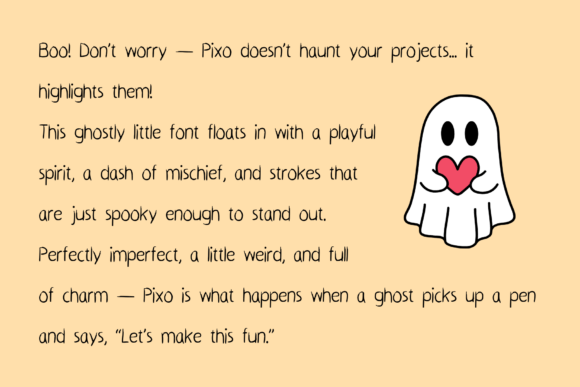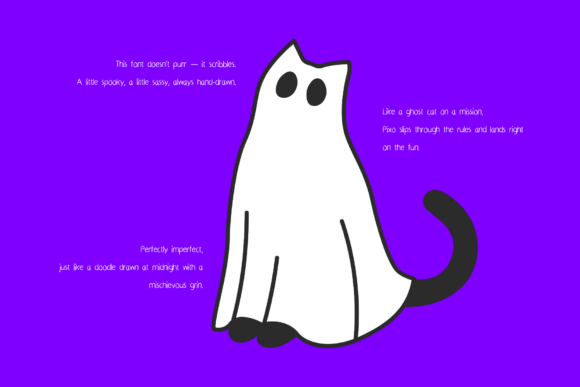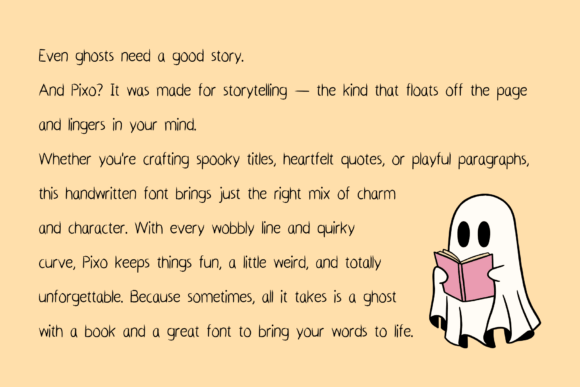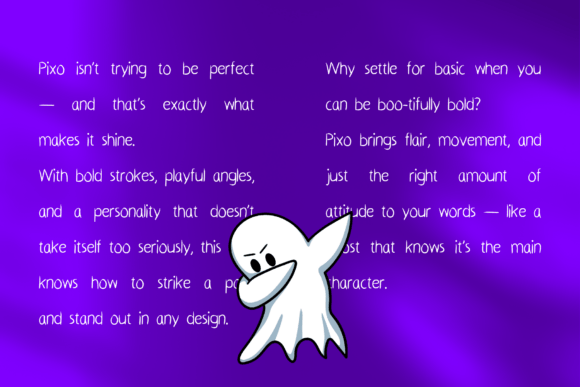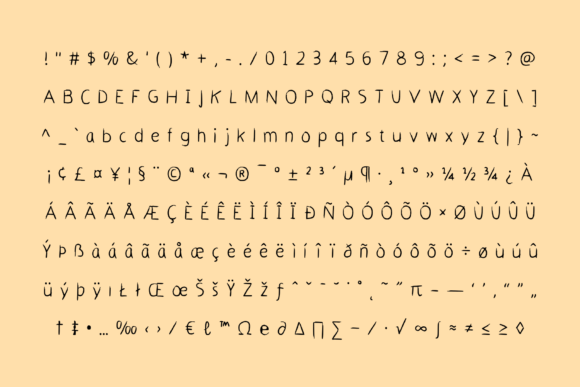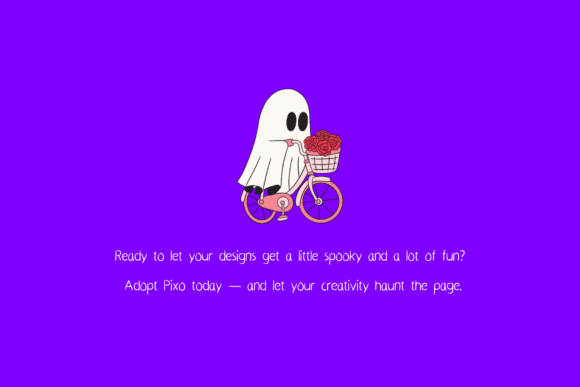
Introduction to Pixo Font
Introducing Pixo, a whimsically eccentric handwritten font designed to charm and captivate.
A balancing act between the cute and the eerie, Pixo weaves playful liveliness into every stroke, infusing your projects with a fresh and vibrant spirit Birthed from the world of cartoons, doodles, and cheeky apparitions, Pixo accessorizes any design with a robust personality that never feels forced.
Key Features of Pixo Font
Why Choose Pixo Font?